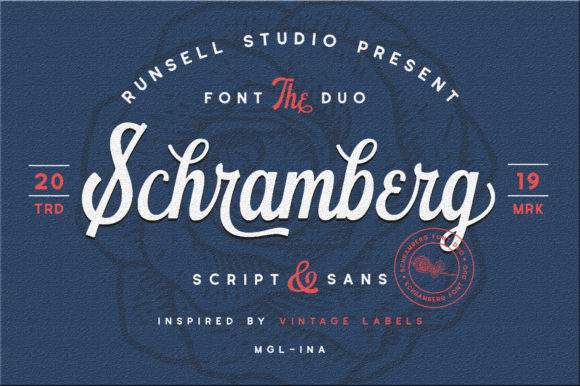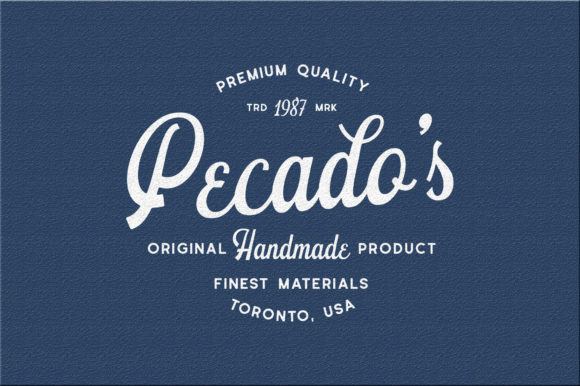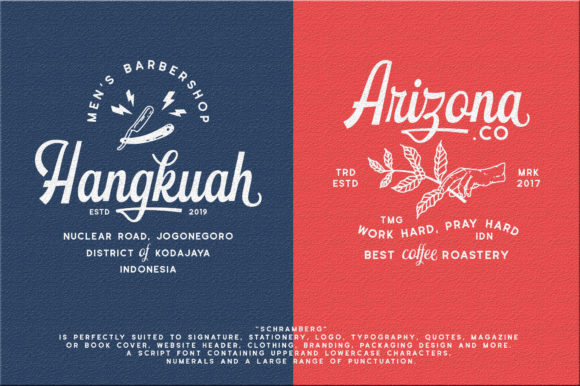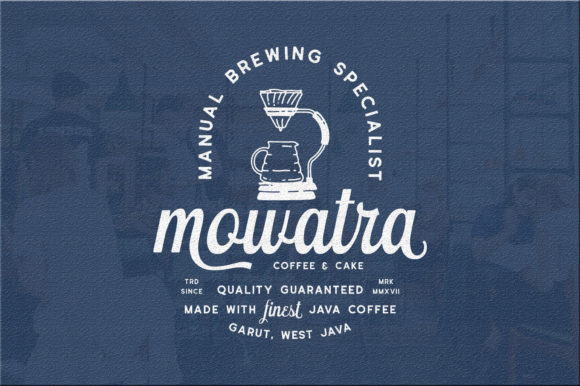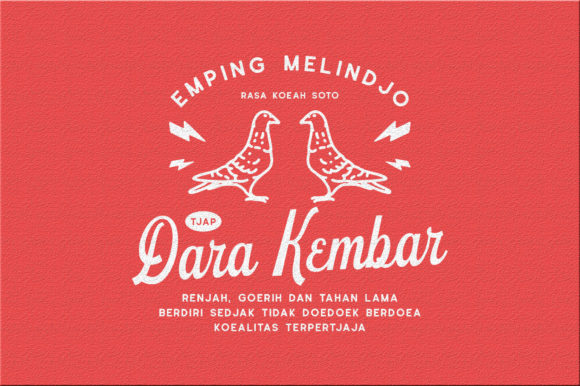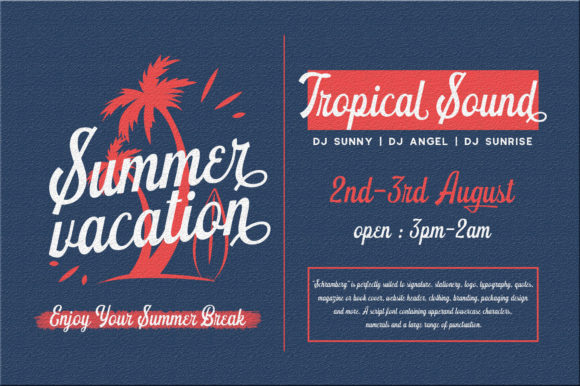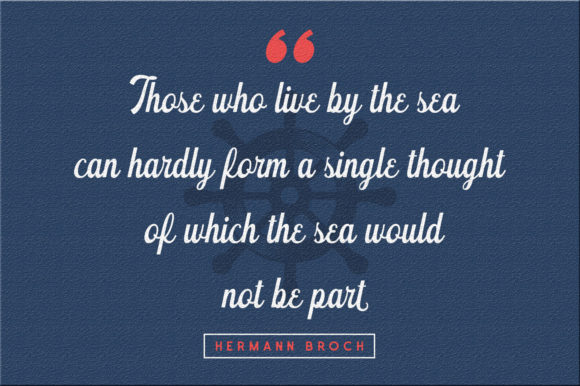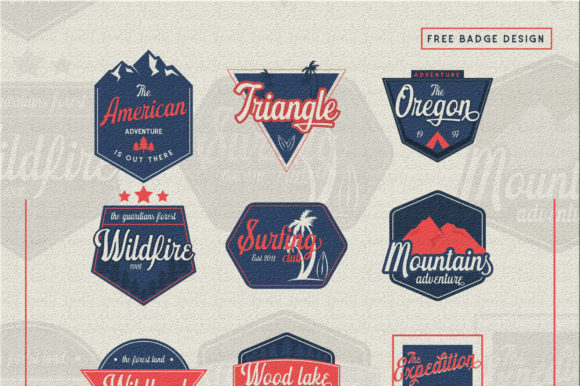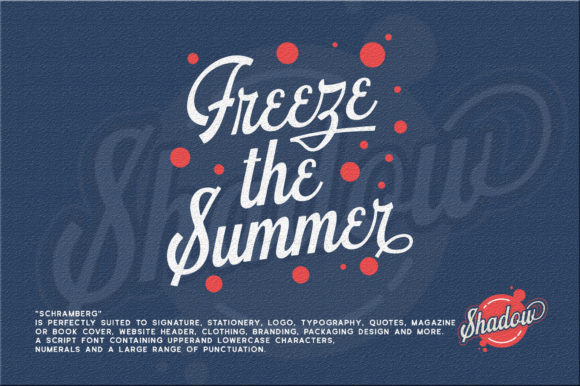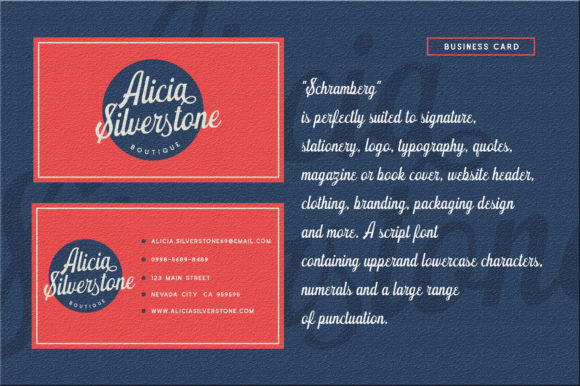
Schramberg Font
About Schramberg Font
Schramberg is a cool vintage-themed handwritten font with a bold twist. It will add a level of authenticity to any design project!